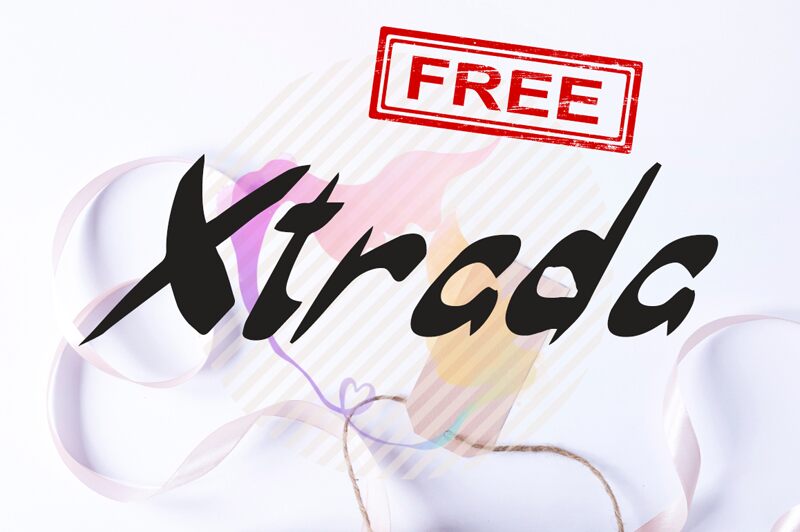
Xtrada
Xtrada font by IZK Creative is a condensed bold brush font that makes a daring appearance within seconds. Its hand-drawn characters are energetic and expressive, giving an informal yet modern touch to your display texts. The contemporary appearance that this font has will mesh effortlessly with the imagination of creatives.